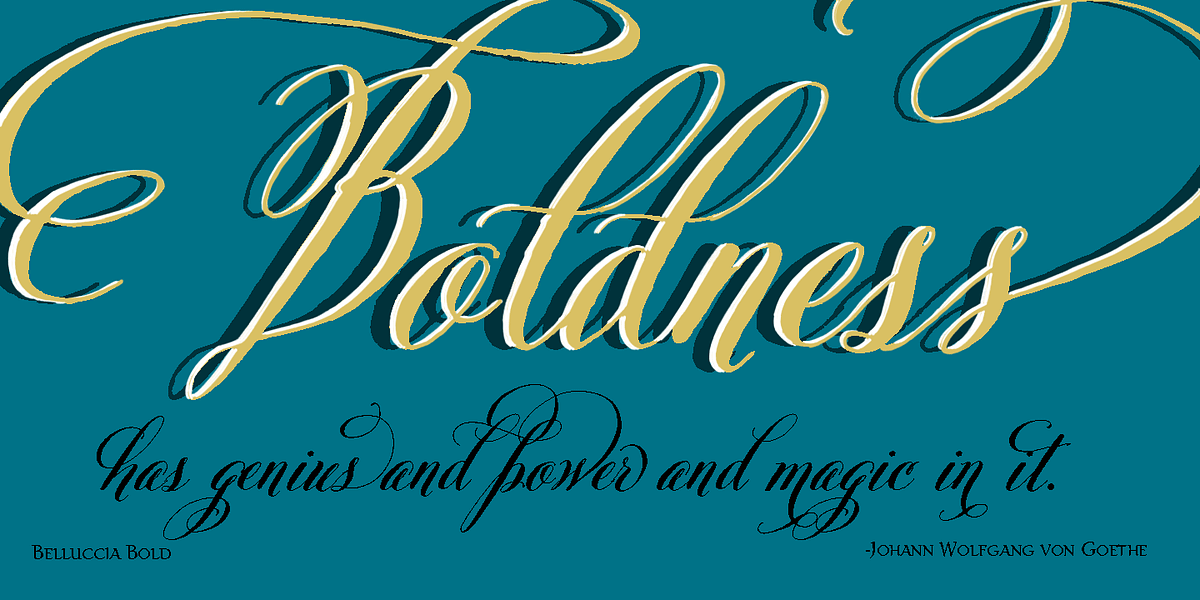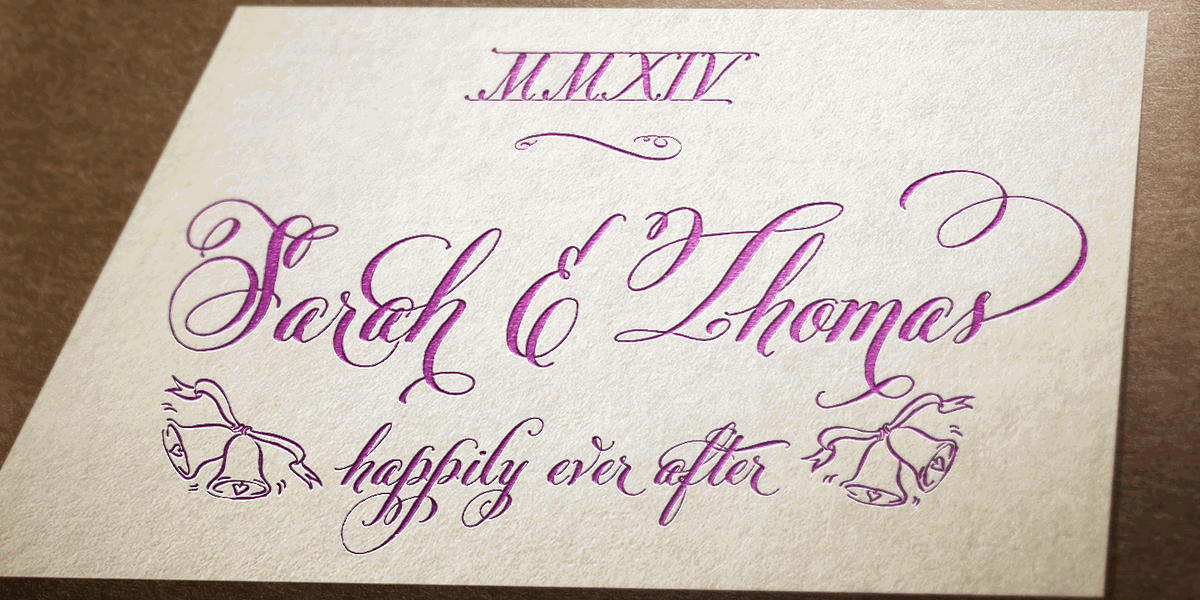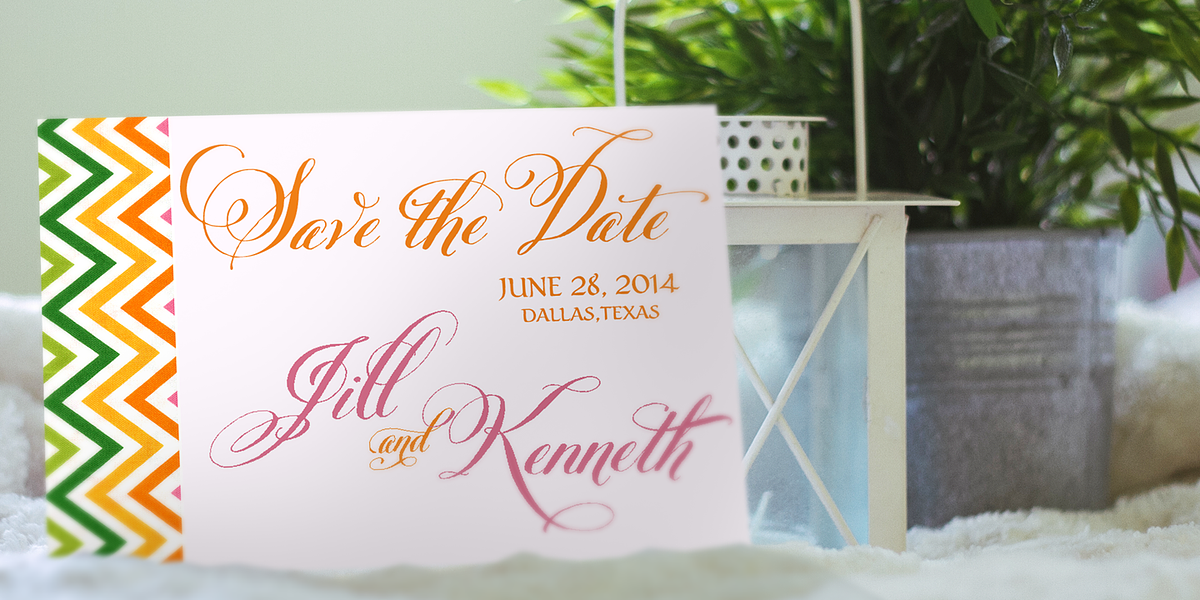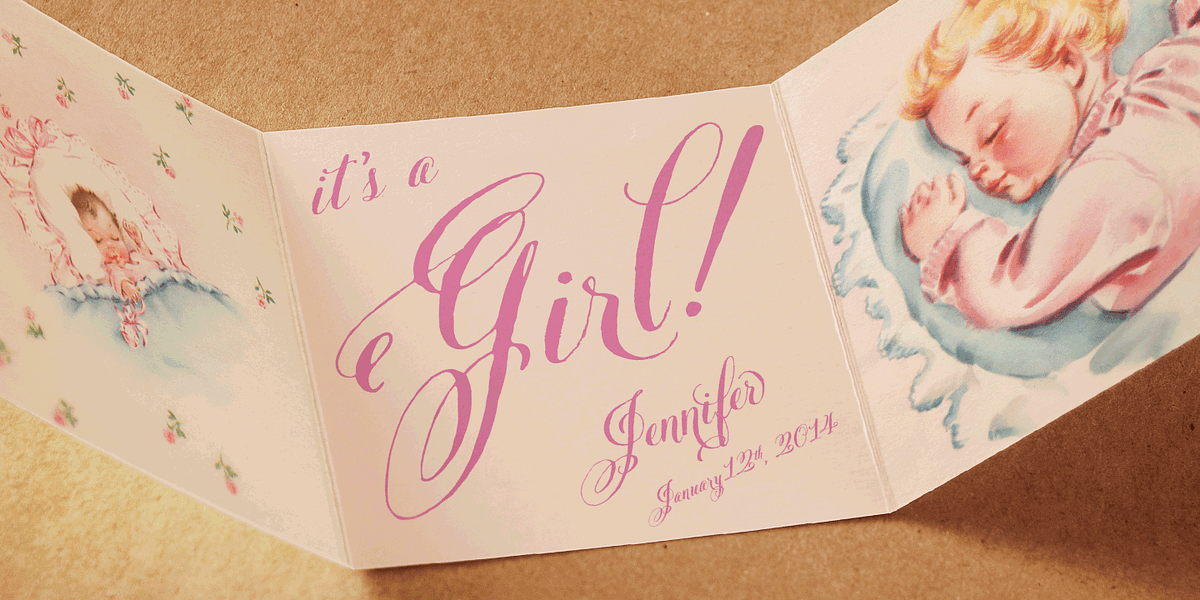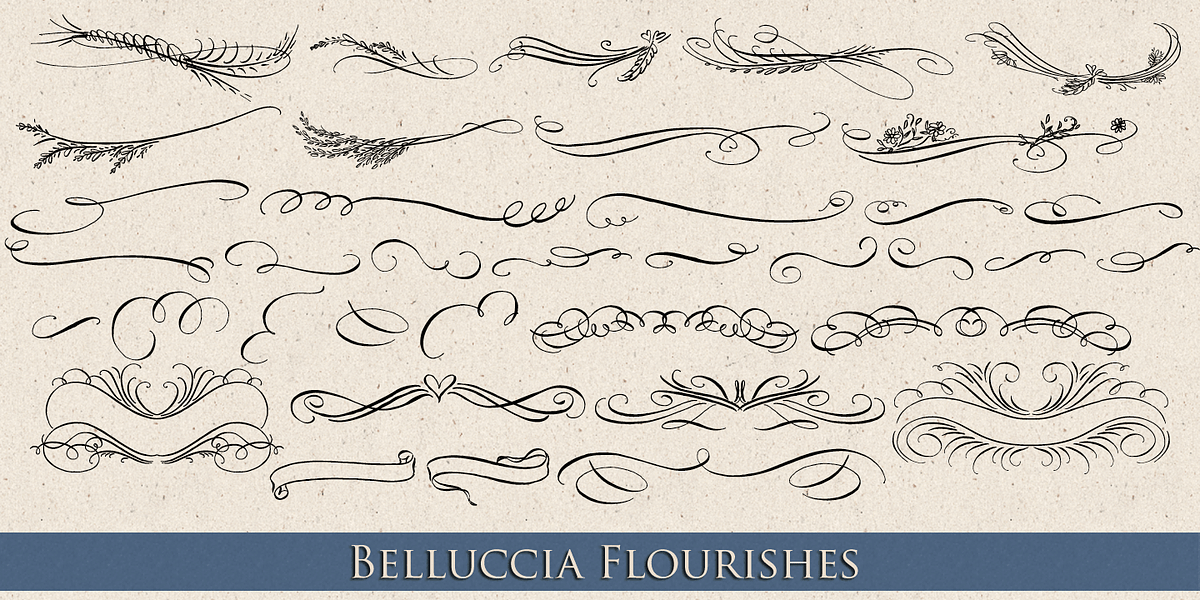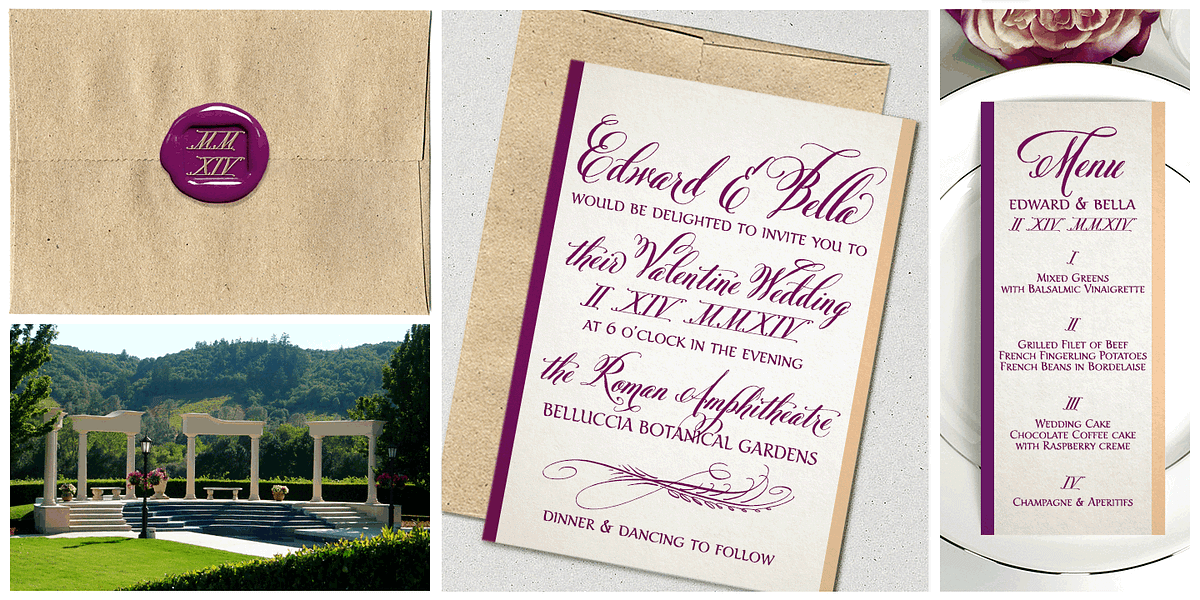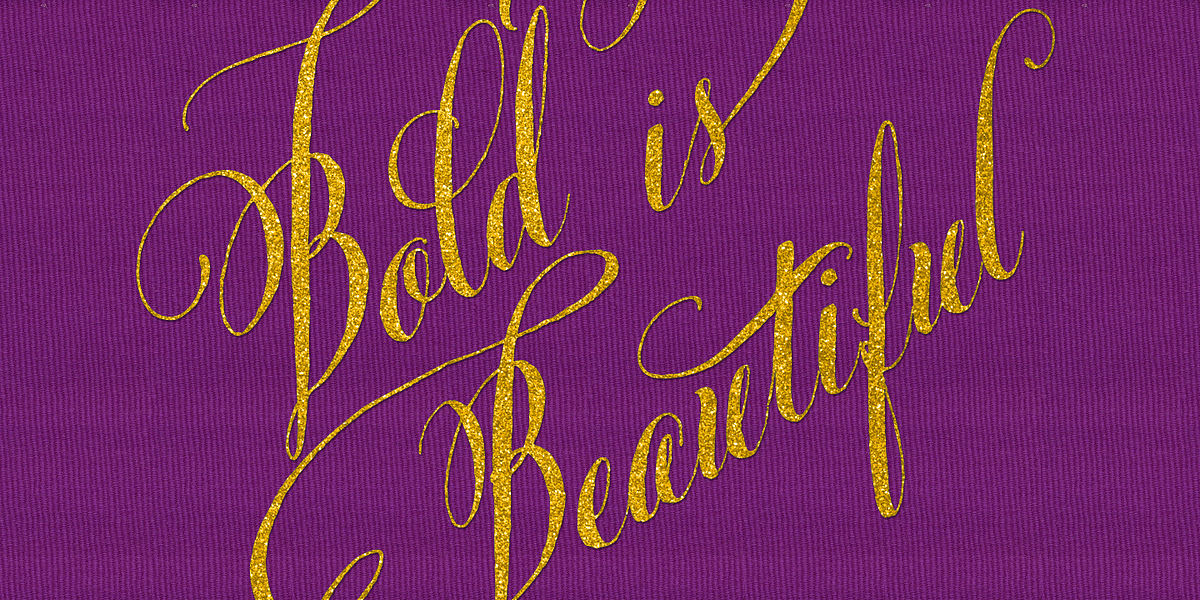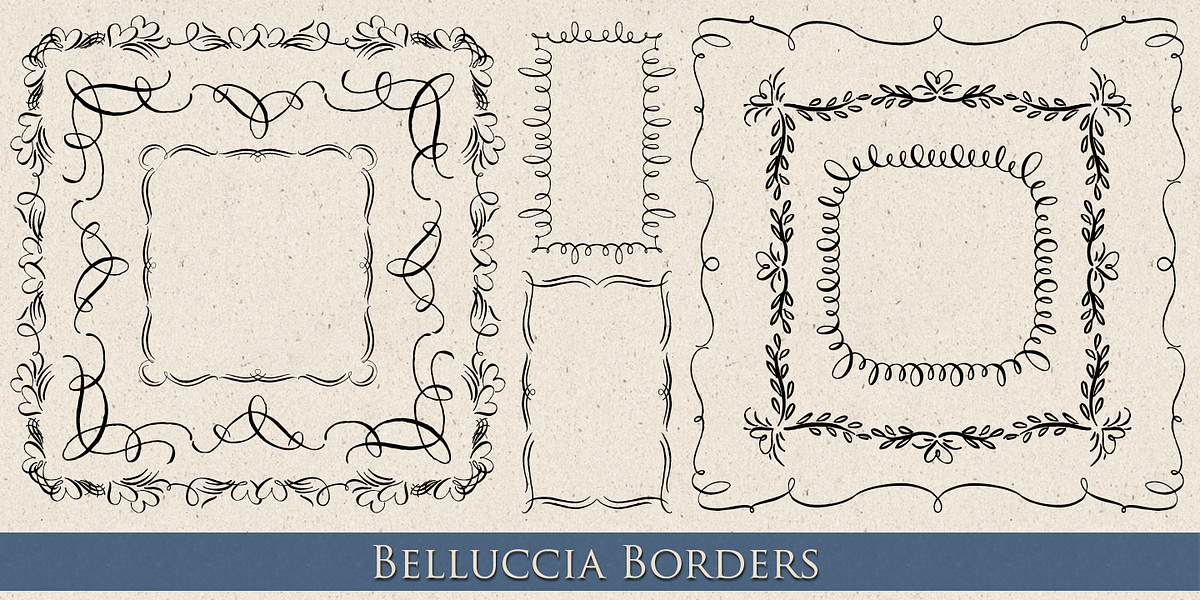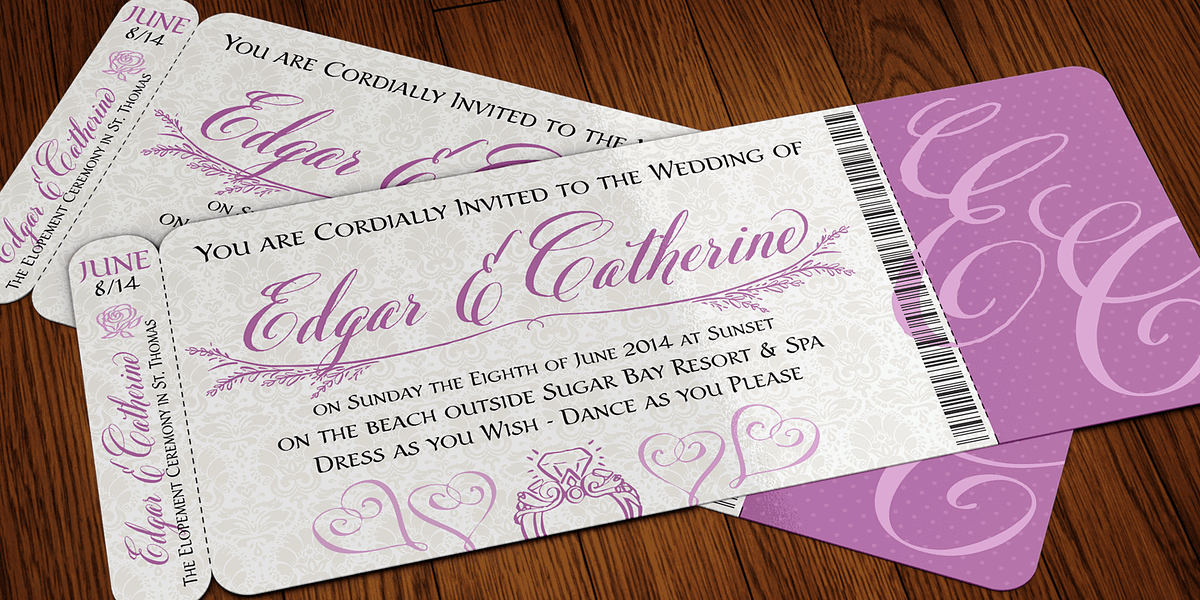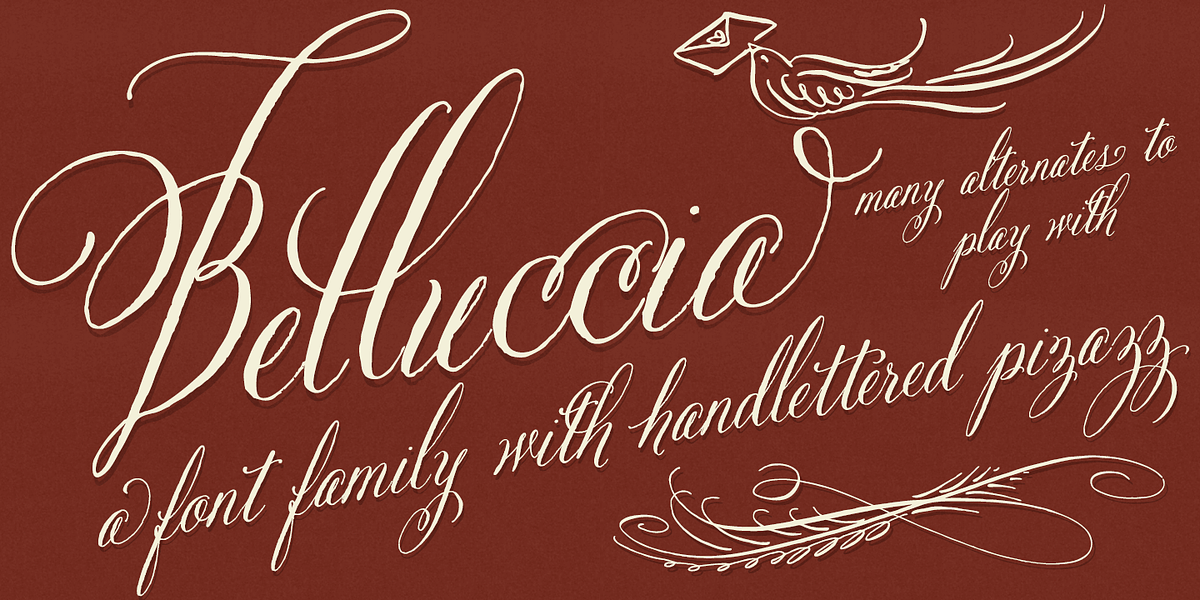
Belluccia
Belluccia is a copperplate script font designed for display purposes. It features a classic and elegant style with swashes and high contrast. The font includes ligatures, stylistic alternates, contextual alternates, and swashes, allowing for a wide range of typographic possibilities. Belluccia comes in both Regular and Bold weights and is available in Pro and Standard formats to accommodate different software capabilities. It also includes dingbats like frames & borders.